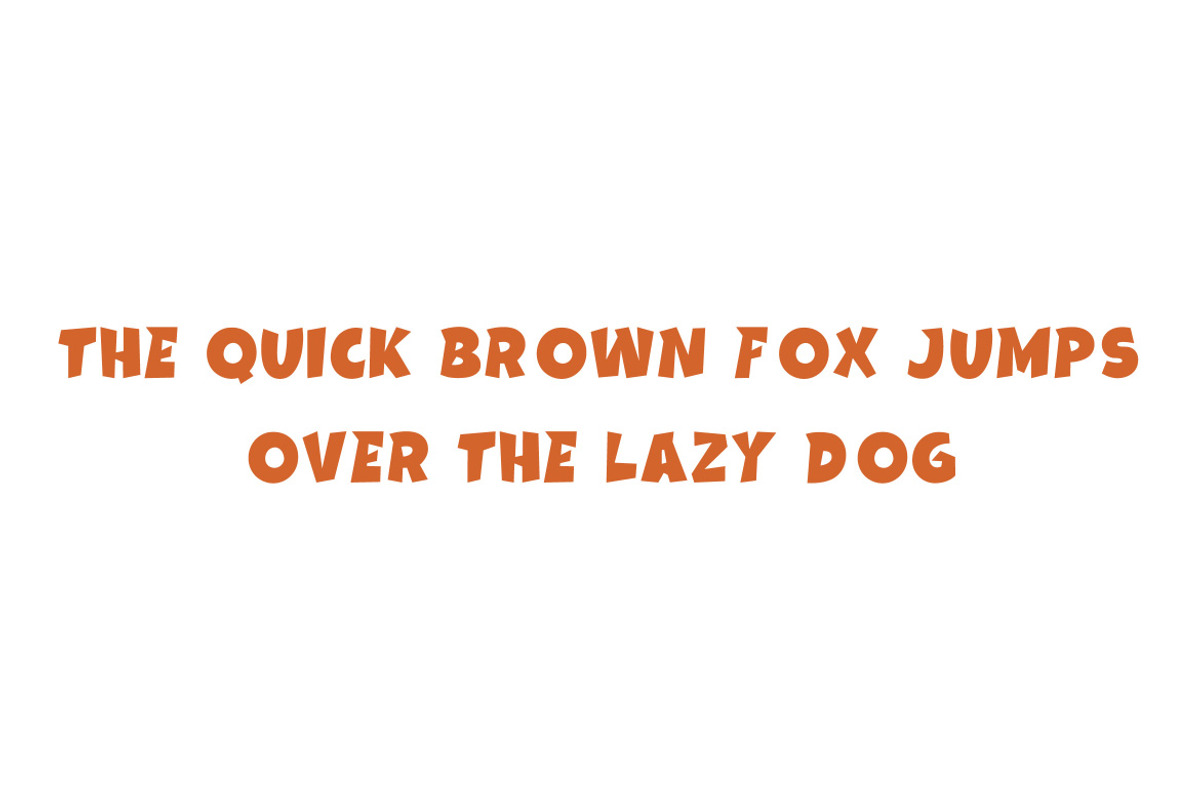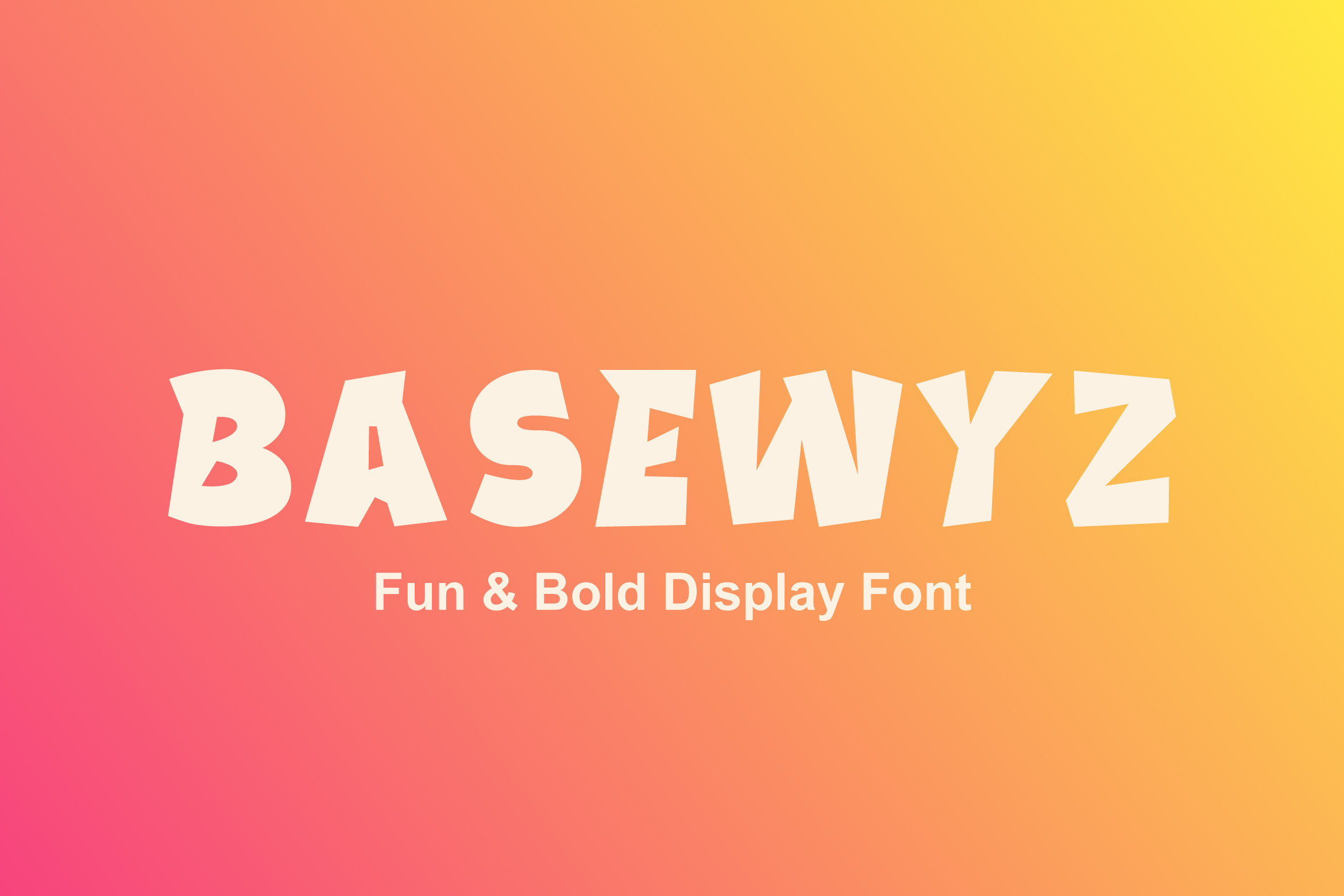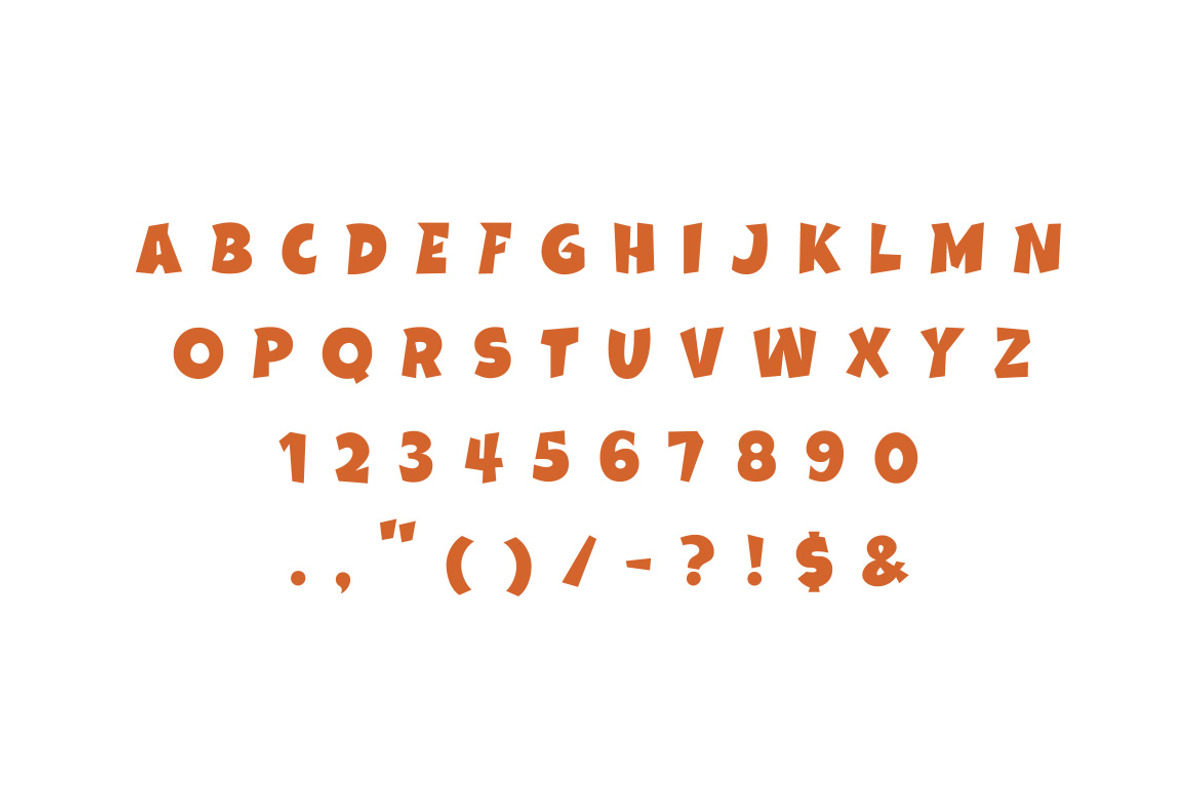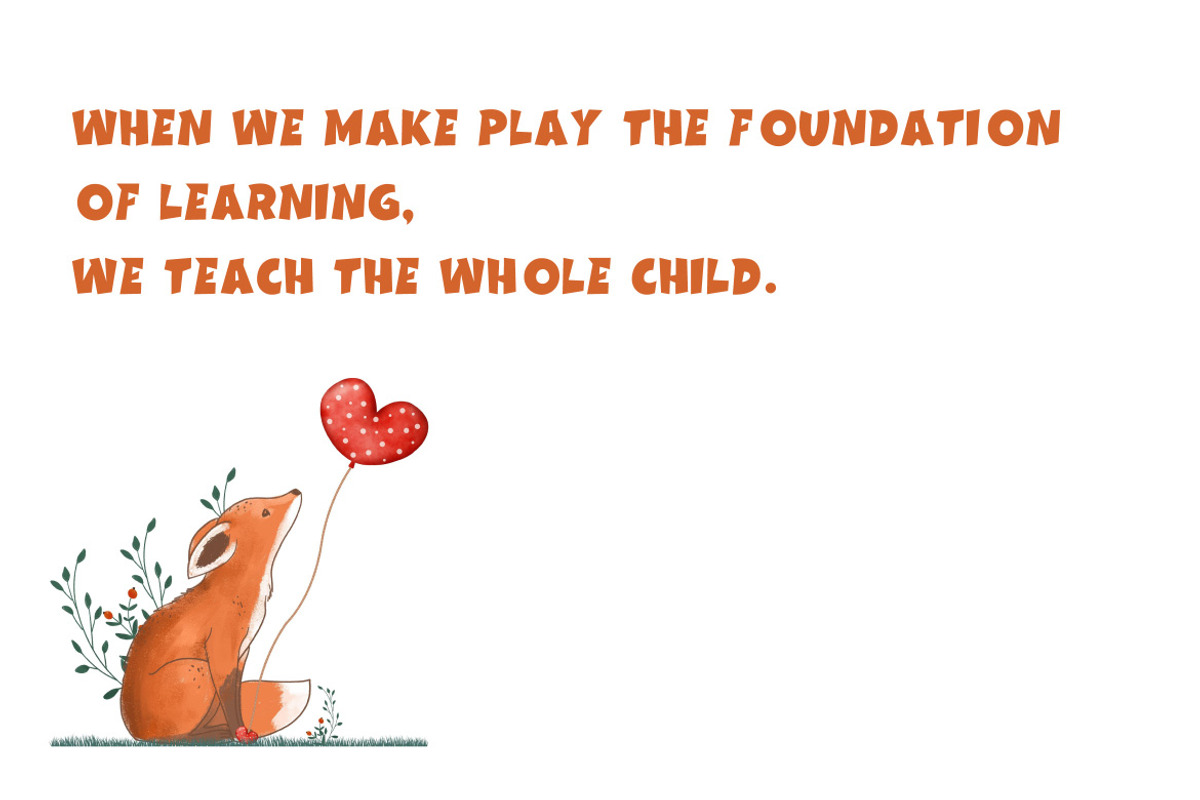
Basewyz – Fun & Bold Display Font
Basewyz is a bold and playful display typeface designed to grab attention instantly. With its chunky shapes, dynamic letterforms, and friendly personality, Basewyz is perfect for headlines, posters, logos, branding, packaging, and creative projects that need a strong visual impact.
This font works great for modern brands, kids projects, entertainment designs, social media graphics, and eye-catching typography. Whether you’re designing a logo, a poster, or bold titles, Basewyz brings fun, confidence, and creativity to your work.